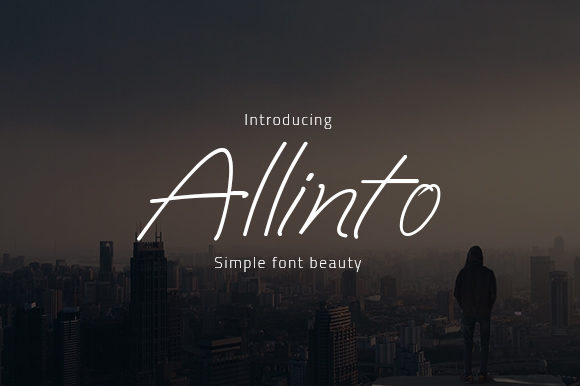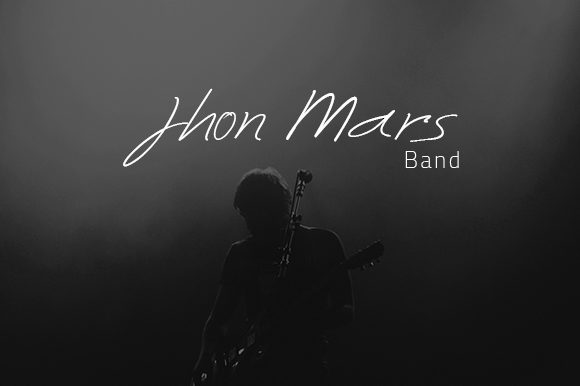
About Allinto Font
The Allinto is a stylish, fresh sans serif typeface with a modern style.
It’s perfect for branding projects, logos, wedding designs, social media posts, advertisements, product packaging, product designs, labels, photography, watermarks, invitations, stationery and every other project that needs a handwriting taste